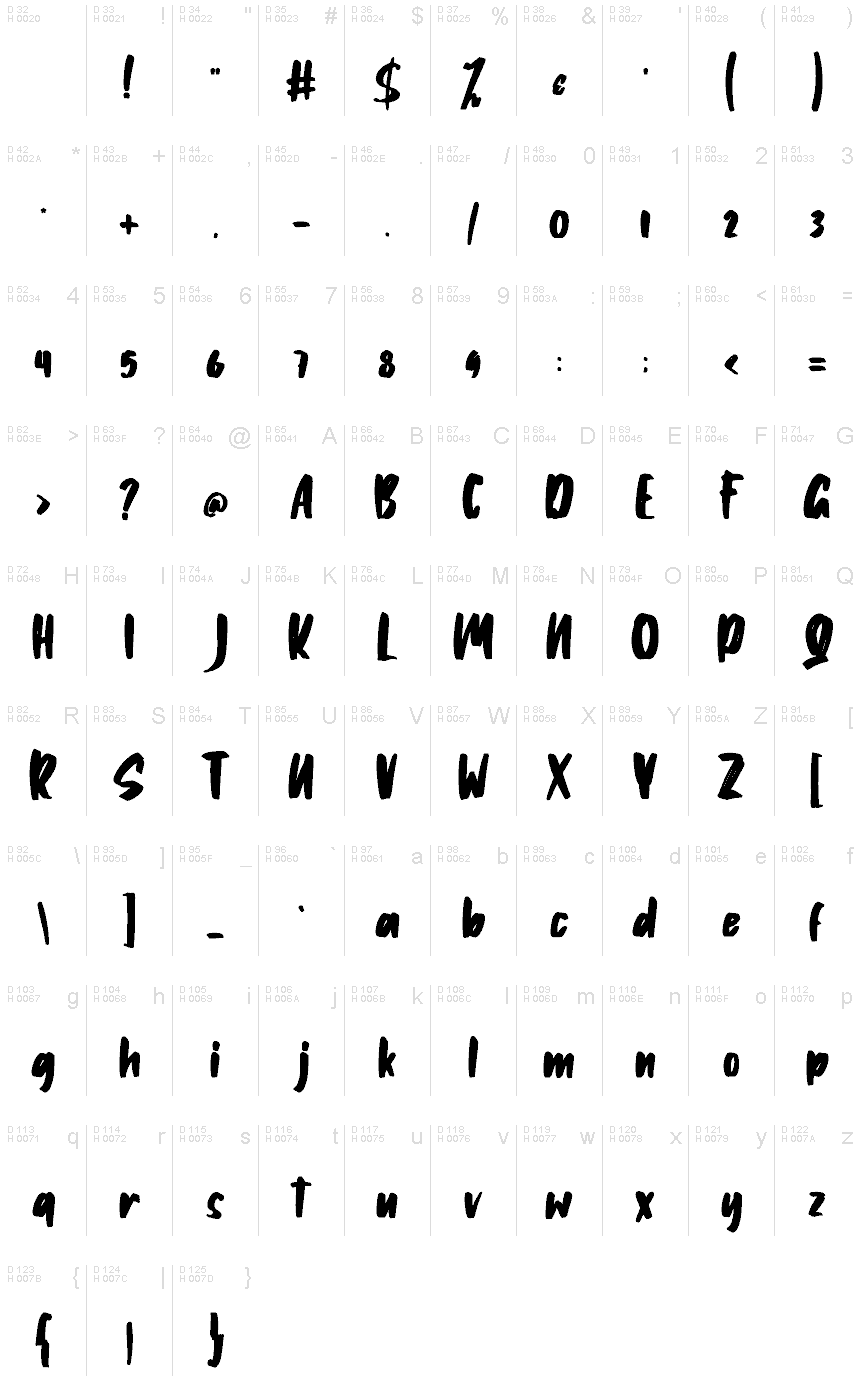
Kingston
Kingston font by Skiiller Studio is a bold, condensed, and expressive brush style typeface. It has a modern vibe, exuding casual elegance with its handcrafted feel. This condensed font has an upbeat, energetic character that can seamlessly elevate any design project into a modern space while keeping it approachable.
Kingston is available for free and can be the ideal complement for branding projects, signage designs, posters, theme or event advertising, magazines titles or covers, brochures headlines or body text, greeting cards designs for birthdays/new year/christmas/others events etc., social media posts (image-based), movie frames where needed especially horror-related subjects like monsters & aliens stories/games oriented at kids!